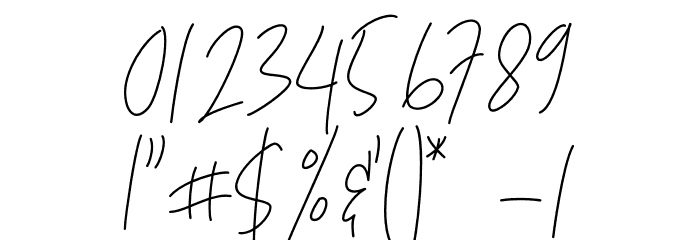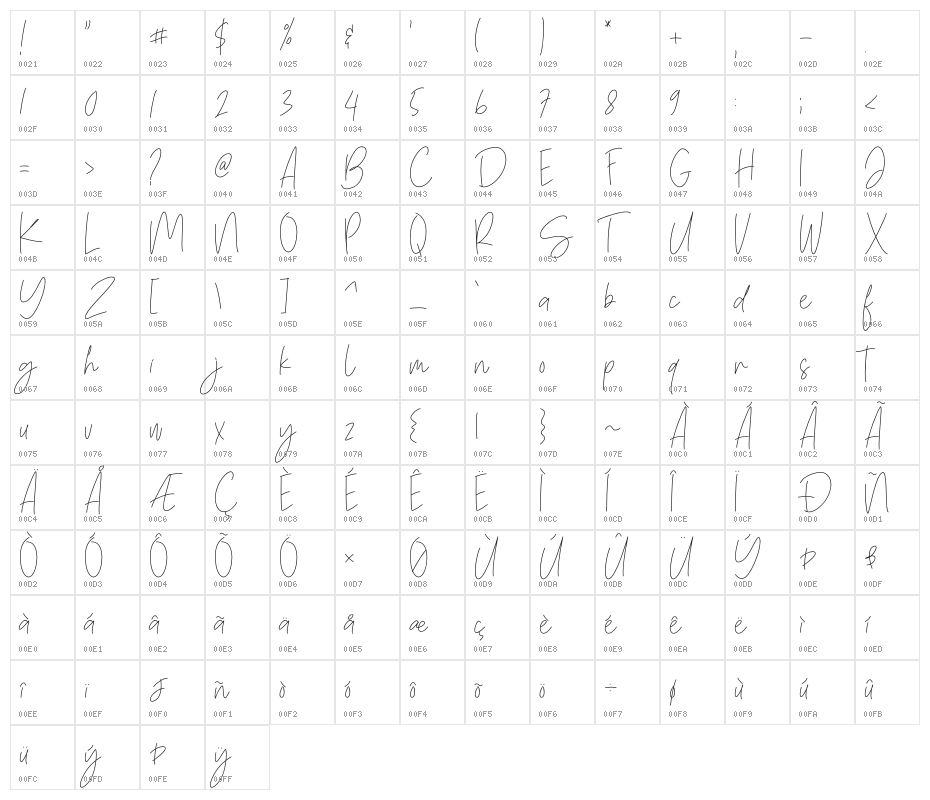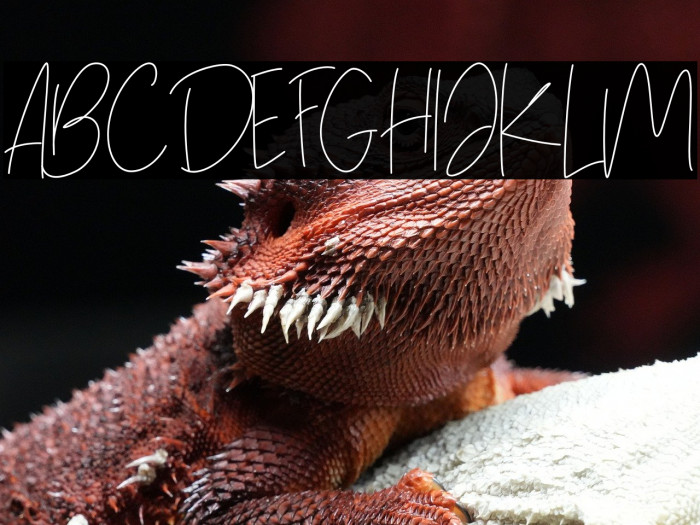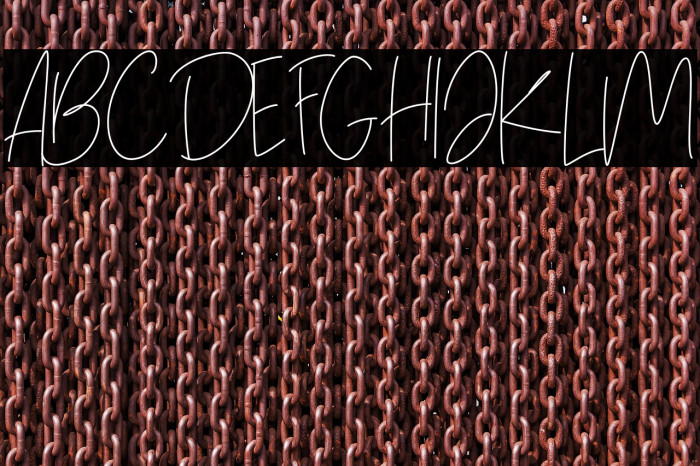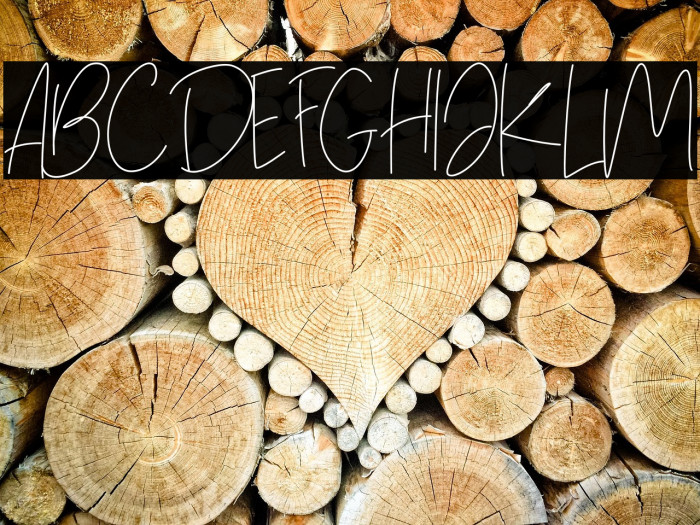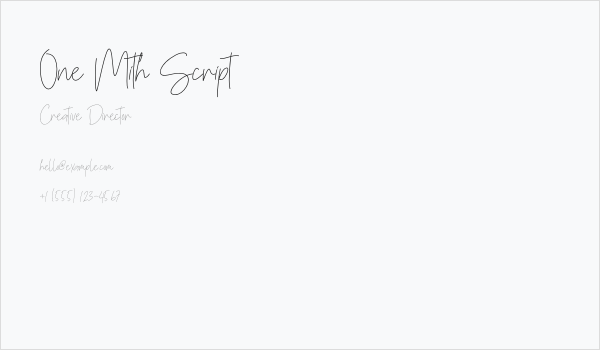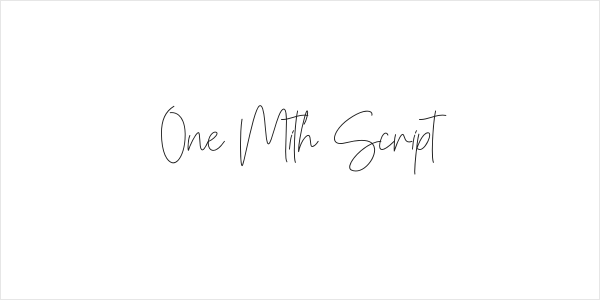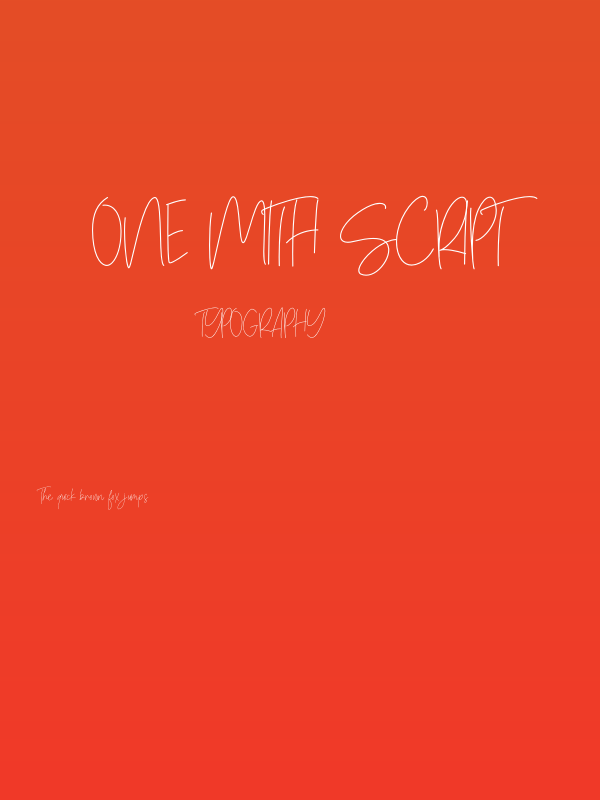
One Mith Script Font
One Mith Script Description
This font features an elegant and flowing script style, characterized by its thin, delicate strokes and a natural, handwritten appearance. The uppercase letters are tall and slightly narrow, with a graceful, airy quality. The lowercase letters maintain a consistent flow, with smooth curves and loops that enhance the font's fluidity. Numbers and special characters are designed to match the overall aesthetic, with a cohesive and harmonious look. The font's light weight and organic style make it suitable for projects that require a personal and artistic touch.